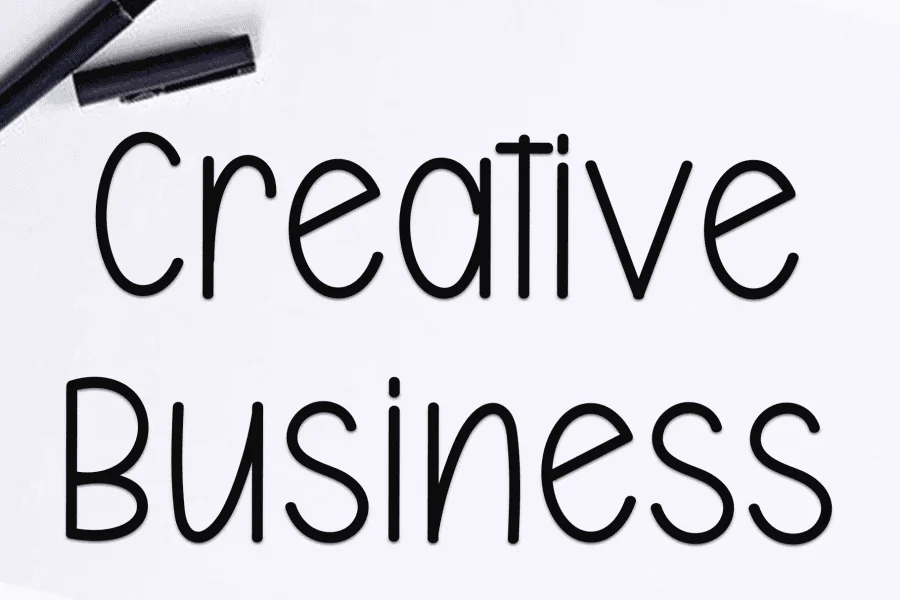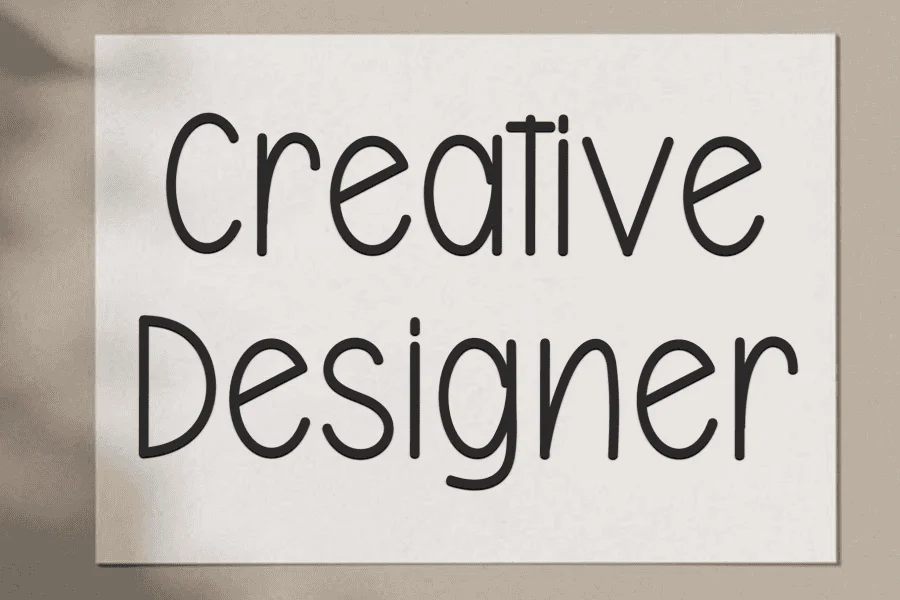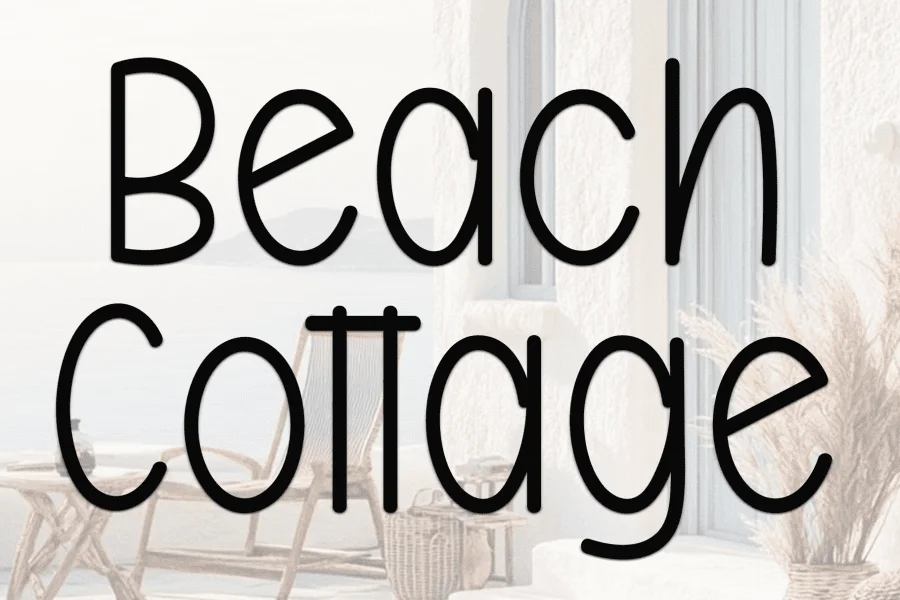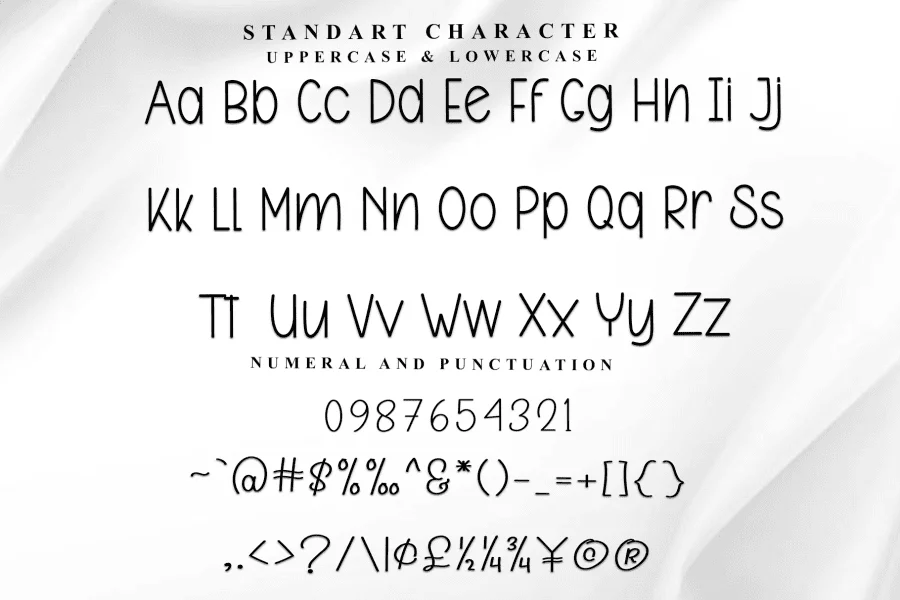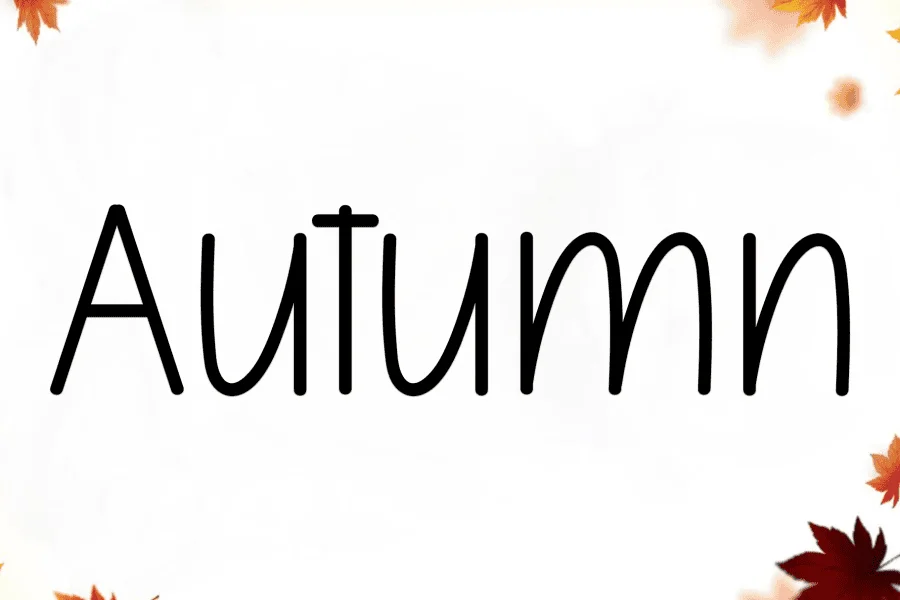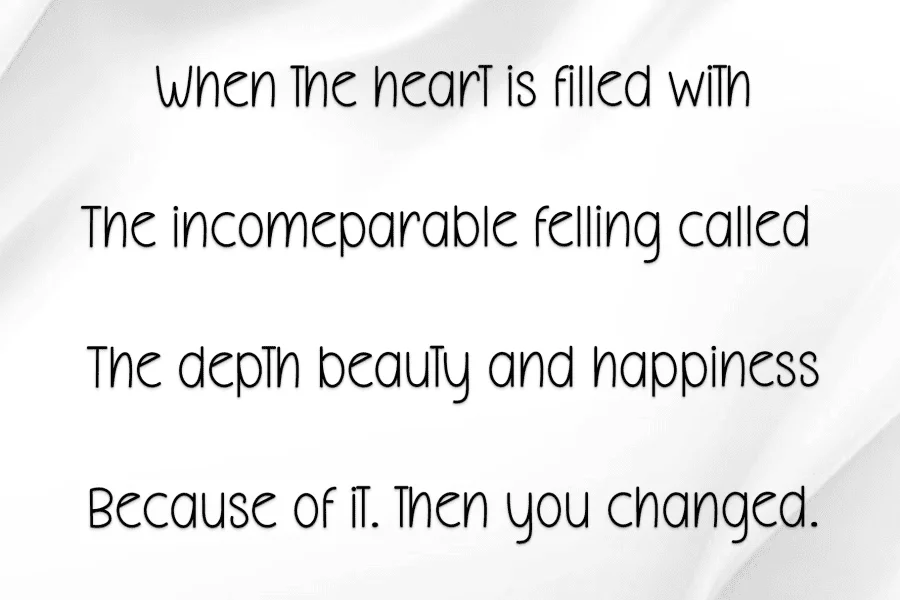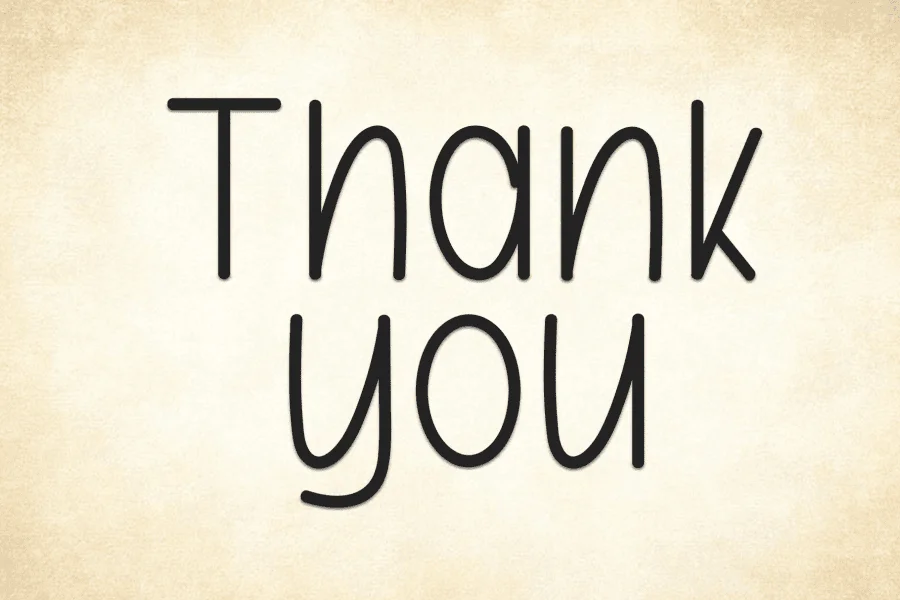
Classy Island is a simple sans serif display typeface characterized by its casual, handwritten aesthetic. It features tall, condensed letterforms with a uniform line weight, giving it a clean yet approachable texture. The design balances a structured, geometric foundation with organic, soft-cornered terminals, creating a rhythmic flow that feels relaxed and human. Its high x-height and narrow proportions contribute to an elegant, breezy silhouette.
This typeface is well-suited for lifestyle branding, editorial layouts, and packaging designs that require a touch of informal sophistication. It fits naturally into coastal-themed visual identities, artisanal product labels, cozy cafe menus, and social media graphics. The friendly, legible structure of classy island also makes it an excellent choice for greeting cards, personal stationery, and lighthearted book covers.